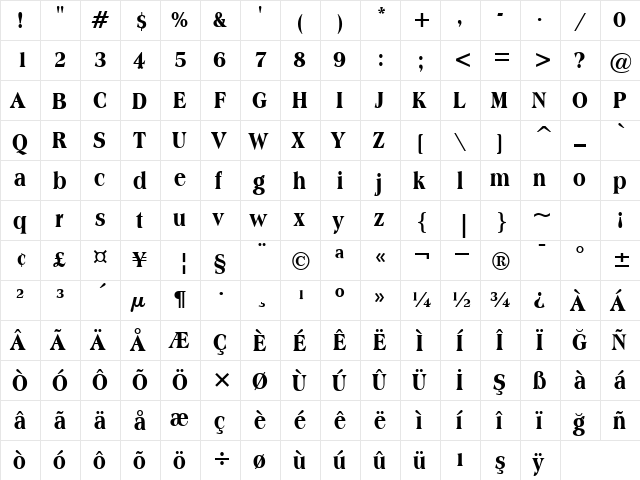
00566 Regular
00566 offers clean, dependable letterforms without strong stylistic allegiance, making it a practical choice for designers who need flexibility.